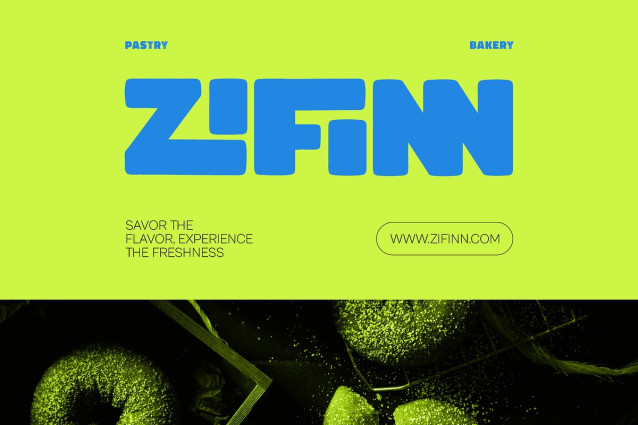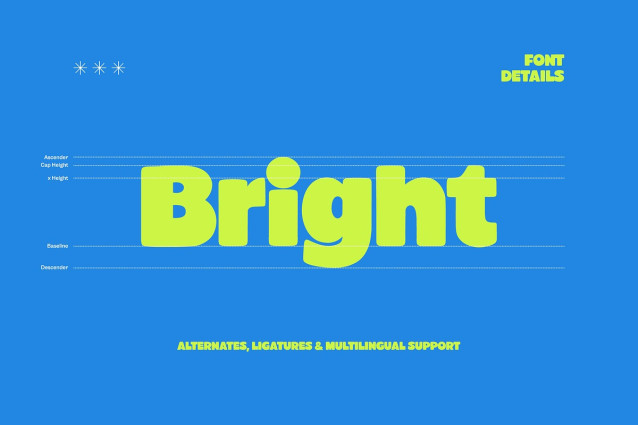
First Bunny Font
First Bunny Font is a chunky bold display font designed to bring a loud, joyful, and energetic personality to your creative projects. With its thick, rounded strokes and bubbly silhouette, this typeface captures the essence of retro nostalgia (think Y2K and late 90s) while maintaining a modern, polished aesthetic.
Created by Namara Creative, First Bunny isn’t just a font; it’s a statement. It transforms standard text into a visual playground, making it the perfect choice for designs that need to pop off the screen or shelf. whether you are designing a streetwear brand, a fun food menu, or a catchy social media headline, First Bunny delivers that “magical” touch.